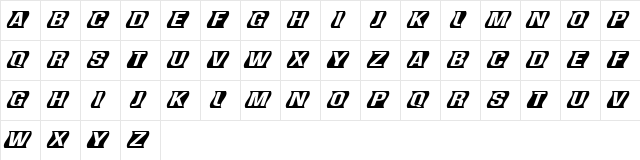
Genghis Khan framed Med Bold Italic Font Preview
| Designer | Mahir Huseynov |
Design Context for Genghis Khan framed Med Typeface
Genghis Khan framed Med offers clean, dependable letterforms without strong stylistic allegiance, making it a practical choice for designers who need flexibility. The dynamic lean of this cut emphasises speed and emphasis in any layout. The heavy weight commands attention and anchors typographic hierarchies.
Pro Tip: Try Genghis Khan framed Med for annotation and caption copy alongside an upright companion — the contrast in angle creates a dynamic but ordered typographic system.